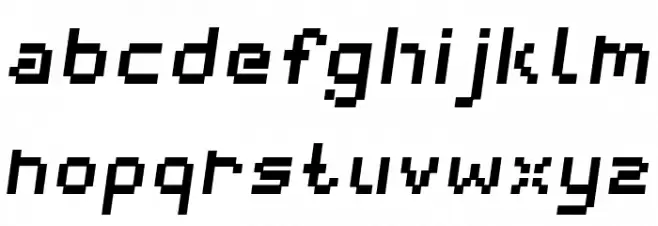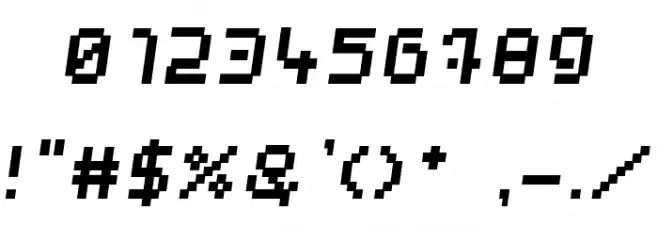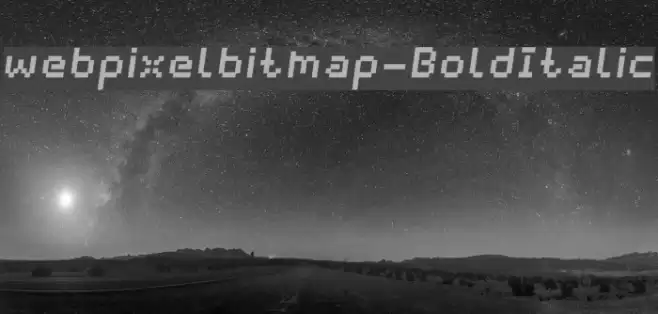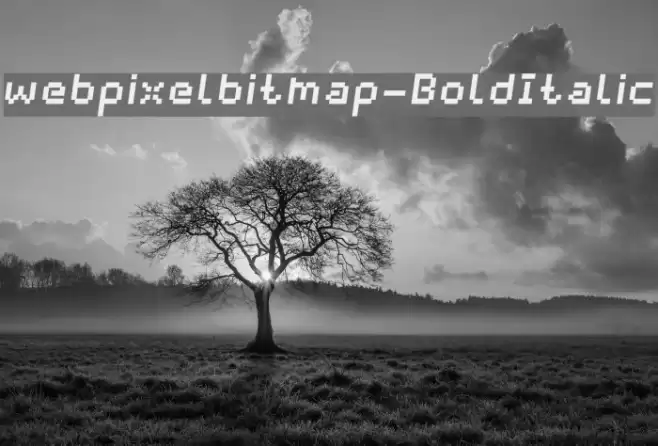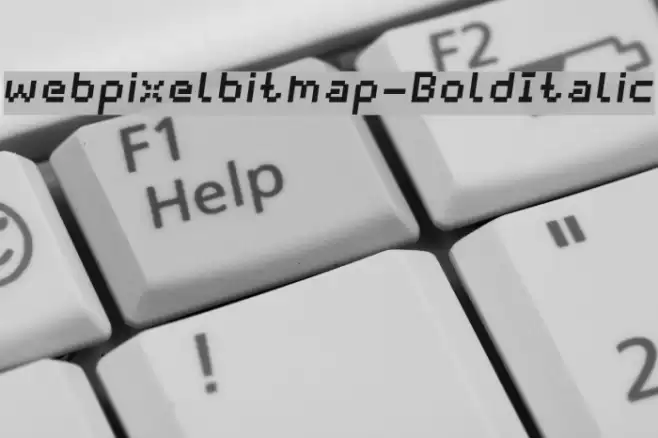
webpixelbitmap-BoldItalic
This font features a bold and italicized pixelated style, reminiscent of classic 8-bit video games. Each character is constructed with a grid-like precision, giving it a retro digital appearance. The uppercase and lowercase letters maintain a consistent height, while numbers and special characters are designed with the same pixelated aesthetic. The boldness of the font enhances its visibility, making it suitable for digital displays and retro-themed projects. Its italic slant adds a dynamic feel, setting it apart from traditional pixel fonts.
A bold, italicized pixel font with a retro digital style.
- Proposed Projects: Ideal for retro video games, digital art projects, and nostalgic branding.
- Overall Style: Retro, Digital
- Use Case: Headlines, Logos, Digital displays